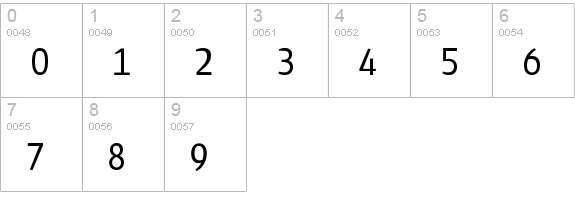
TabardEF-Regular Font Details
TabardEF-Regular is the standard, neutral variant in the TabardEF typeface family \xE2\x80\x94 well suited to general body text, paragraphs, and standard typographic work.
TabardEF-Regular is a versatile and elegant font that exudes sophistication and professionalism. It is the perfect choice for those seeking a font that strikes the perfect balance between classic and contemporary design. With its clean and crisp lines, TabardEF-Regular captures attention and effortlessly enhances any text, whether it's used for headlines, body text, or logos. The font's sleek and modern aesthetic lends itself well to a wide range of projects, from corporate presentations to creative branding. One of the greatest advantages of TabardEF-Regular is that it is freely available to download at FontsMarket.com. This means that you can easily access this exceptional font without any cost, making it an invaluable resource for designers, typographers, and anyone in need of a high-quality font for their projects. The versatility of TabardEF-Regular extends beyond its aesthetic appeal. It is highly legible, ensuring that your message is conveyed clearly and effectively. The font's well-balanced proportions and carefully crafted letterforms make it easy to read, even at small sizes. Whether you are designing a website, creating a printed publication, or working on a branding project, TabardEF-Regular is a reliable and stylish font that will elevate your work to new heights. Its timeless elegance and free availability make it a must-have for any design toolkit. Download TabardEF-Regular today at FontsMarket.com and experience the power and beauty of this remarkable font.